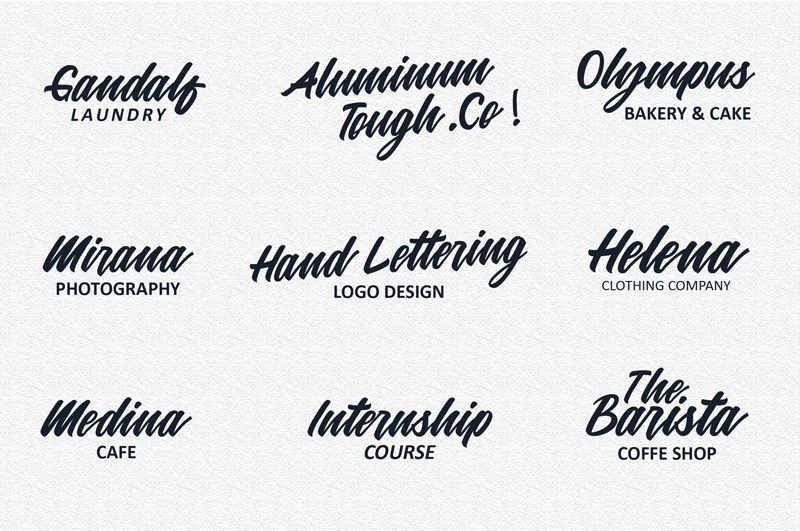
Hello, and thank you for downloading this font. Mattilda is good for Brand design, T-shirt, Handwritten logo adn many more. I made it with love, so I hope you’ll love to use it! Cheers :) |